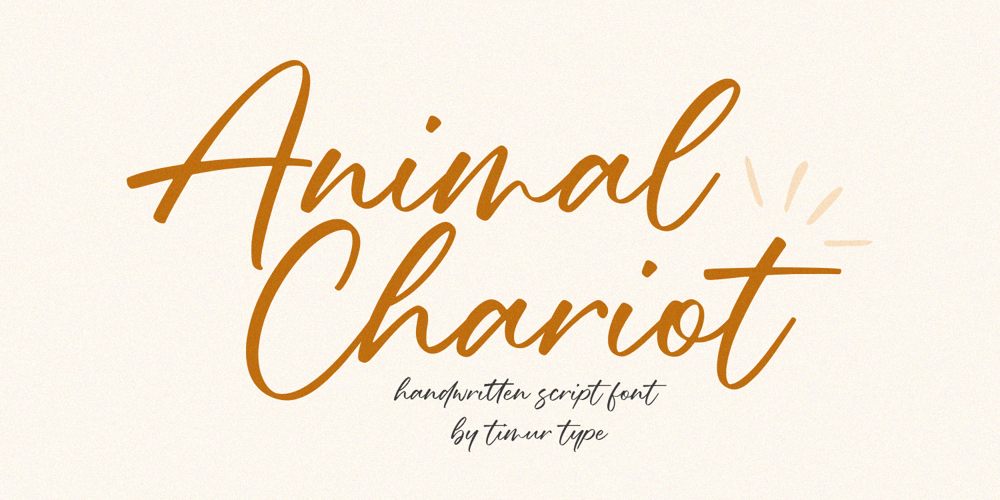
Animal Chariot Font Family was designed by Wara Sigit Tri Pamungkas and published by Timurtype. Animal Chariot contains 1 styles and family package options. Animal Chariot A Handwritten Script FontAnimal Chariot is perfect for product packaging, branding project, megazine, social media, wedding, or just used to express words above the background.Animal Chariot also multilingual support.Embelish your designs with our original fonts.Enjoy the font,Thank you!